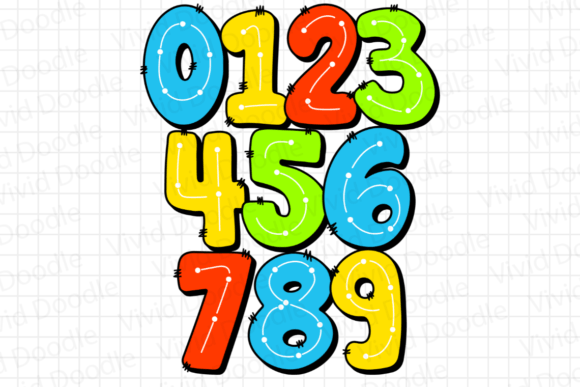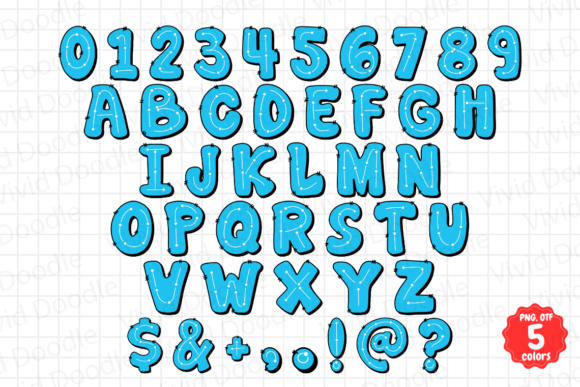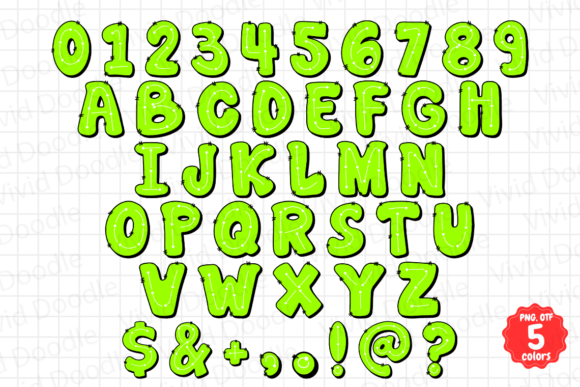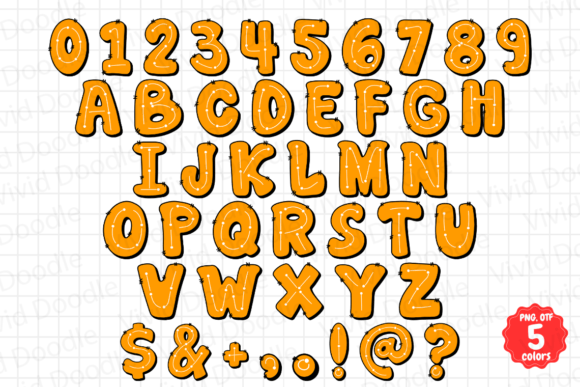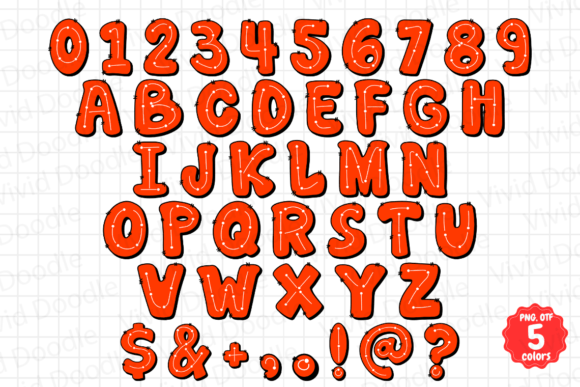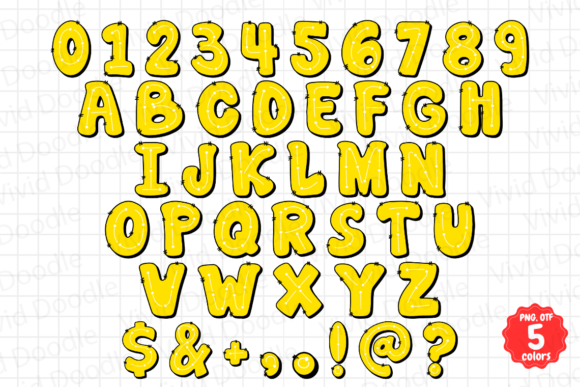
Introduction to Rainbow Dash Dot Font
Do you remember that moment when you’re brainstorming ideas for a creative project, and suddenly, a burst of color and energy pops into your mind? That’s exactly what the “Rainbow Dash Dot Font” can bring to your designs! This lively typeface is a design resource that’s perfect for adding a playful touch to your projects.
Whether you’re a seasoned designer or a DIY enthusiast, the “Rainbow Dash Dot Font” is a valuable addition to your toolkit. Its vibrant colors and dotted style make it an ideal choice for party themes, holidays, school projects, and creative art. With this high-quality font, you can create stunning graphics that stand out from the crowd. Plus, the black version is compatible with Cricut Design Space and other cutting machines, making it a great choice for crafty projects.
Key Features of Rainbow Dash Dot Font
- High-quality design resource perfect for creative projects
- Rainbow Dash Dot Font features a transparent background, making it ideal for overlaying on images
- Vector format ensures crisp and clear display at various resolutions, including 300 DPI and 600 DPI
- Unique characteristics include bold, colorful lines and geometric shapes, making it perfect for adding a playful touch to designs
- Comes with a range of customization options, allowing designers to tailor the font to their specific creative project needs
Honest Review: Rainbow Dash Dot Font
- ✨ The font is incredibly versatile and can be used in a variety of design contexts, from logos to graphics and even web design.
- ✨ The transparent background makes it easy to layer over other elements and create unique, eye-catching designs.
- ✨ The font is highly customizable, allowing you to adjust the size, color, and spacing to suit your creative vision.
Overall, I’m impressed with the Rainbow Dash Dot Font. It’s a solid design resource that’s perfect for personal or creative projects. However, designers who need a font for commercial use may want to explore other options.
The Rainbow Dash Dot Font is ideal for creative projects such as posters, social media graphics, and presentations. Its unique design makes it perfect for adding a playful and eye-catching element to your designs.